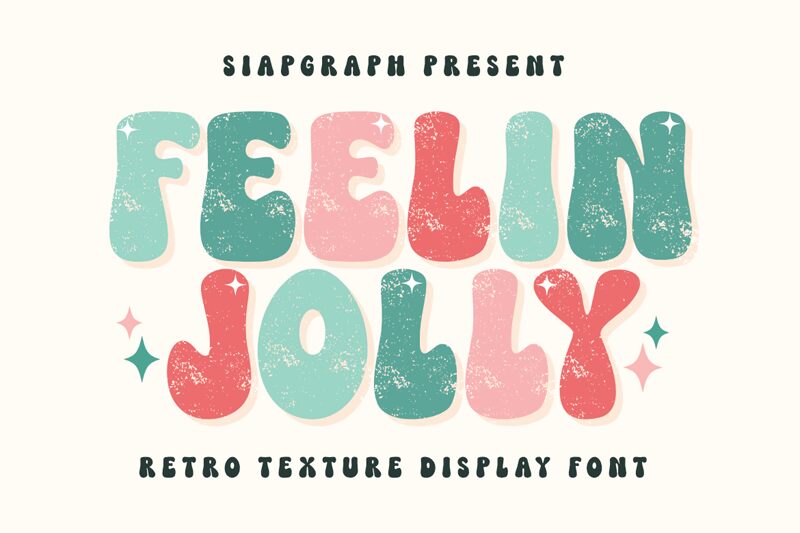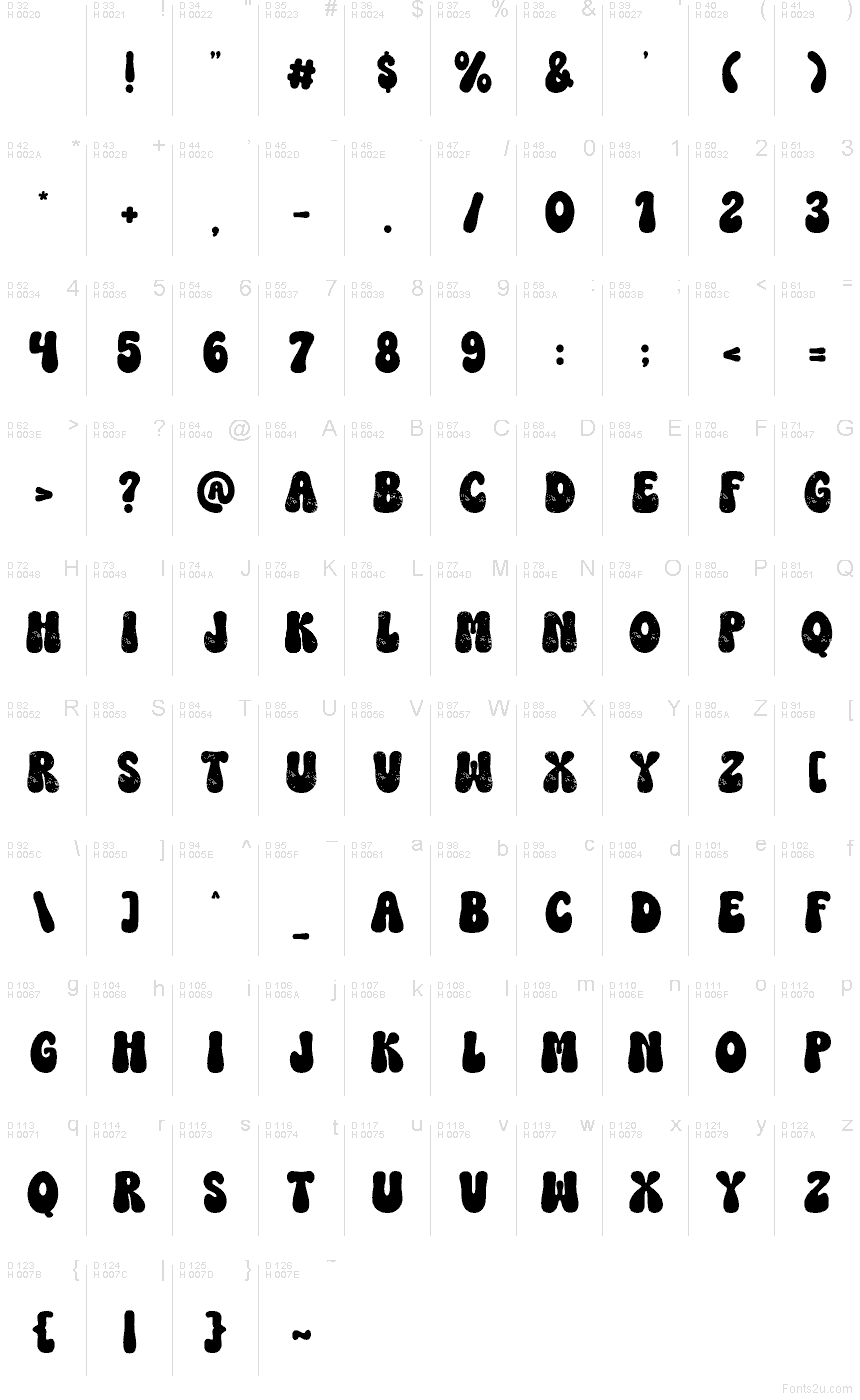
Feelin Jolly Regular
Feelin Jolly by SiapGraph is a free groovy display font shaped around big rounded silhouettes and a soft, bouncy rhythm. The letters feel inflated rather than geometric, with broad curves and narrow inner gaps that give the design a cheerful, almost gummy presence.
That buoyant mass makes sense on holiday cards, party invitations, sticker designs, playful packaging, and social media headers where short words need to feel warm and upbeat. It can also anchor kid-focused branding or seasonal promo graphics, especially when you want lettering that reads more like a graphic element than a neutral headline.
SiapGraph